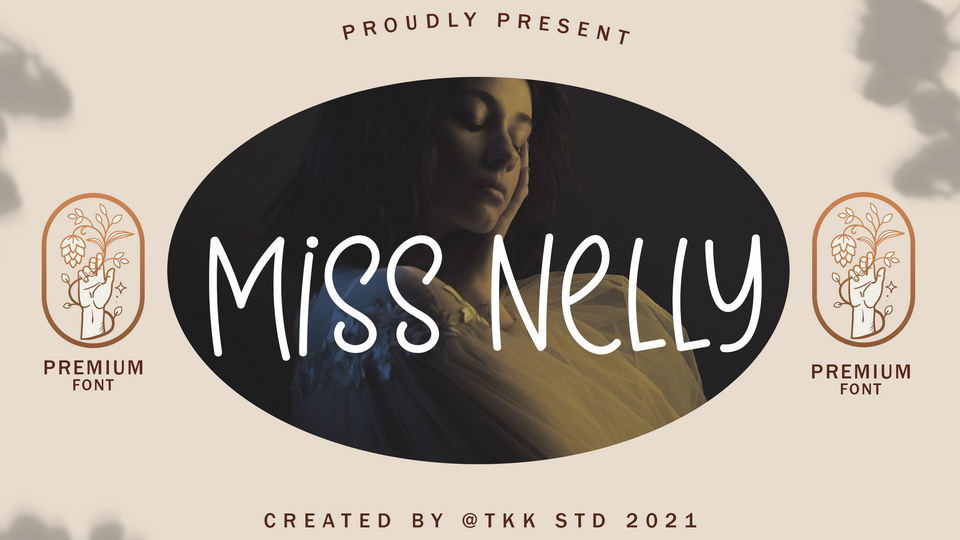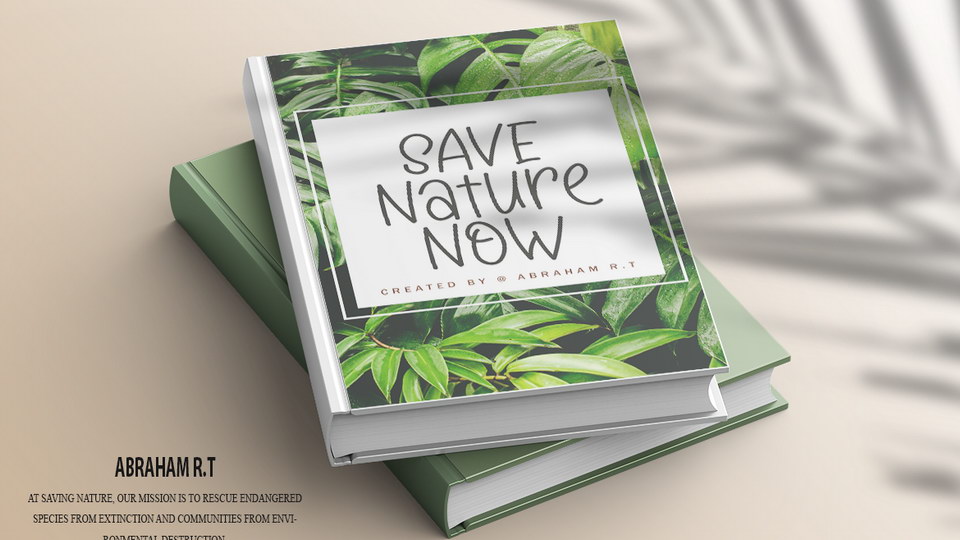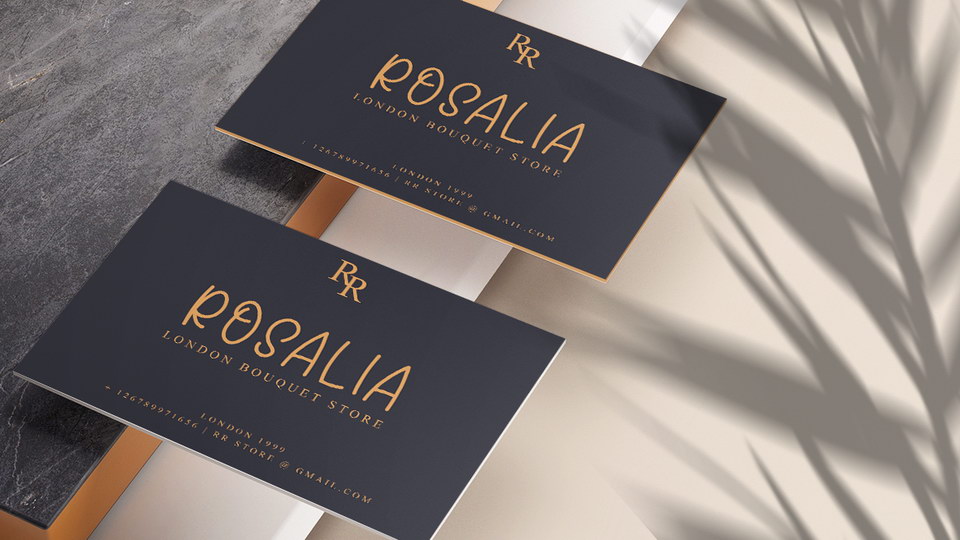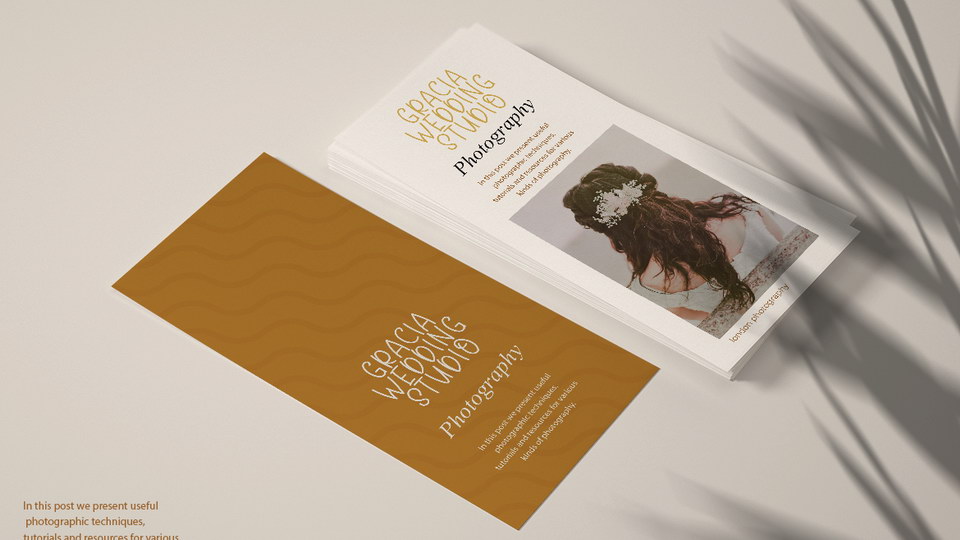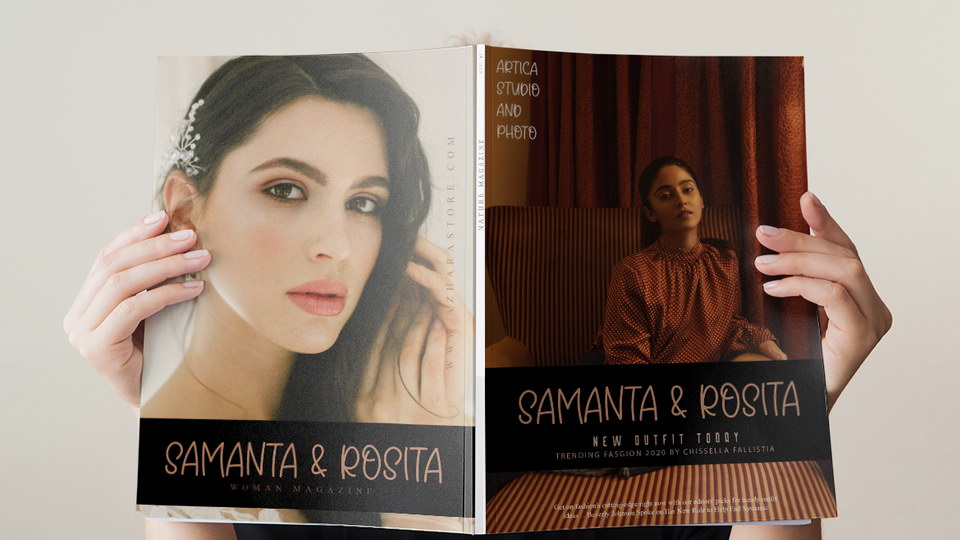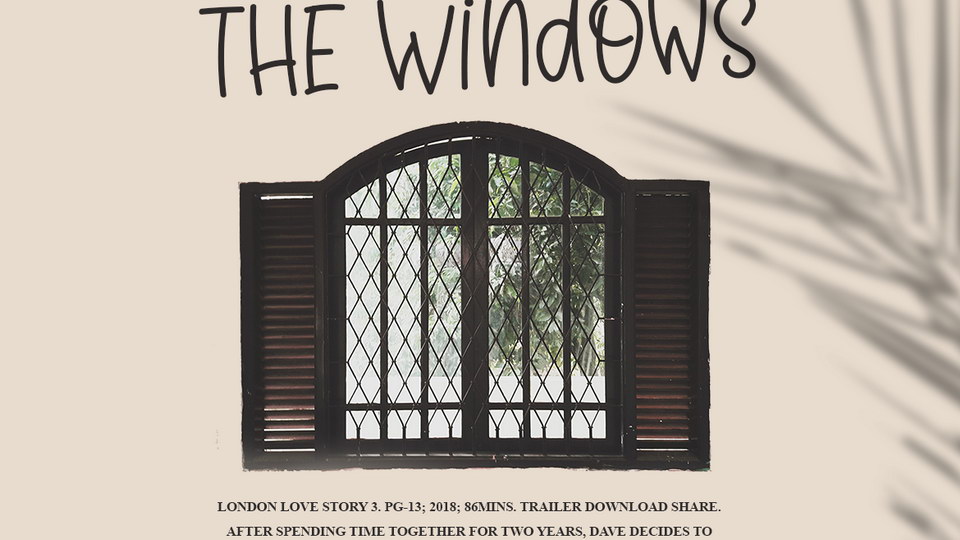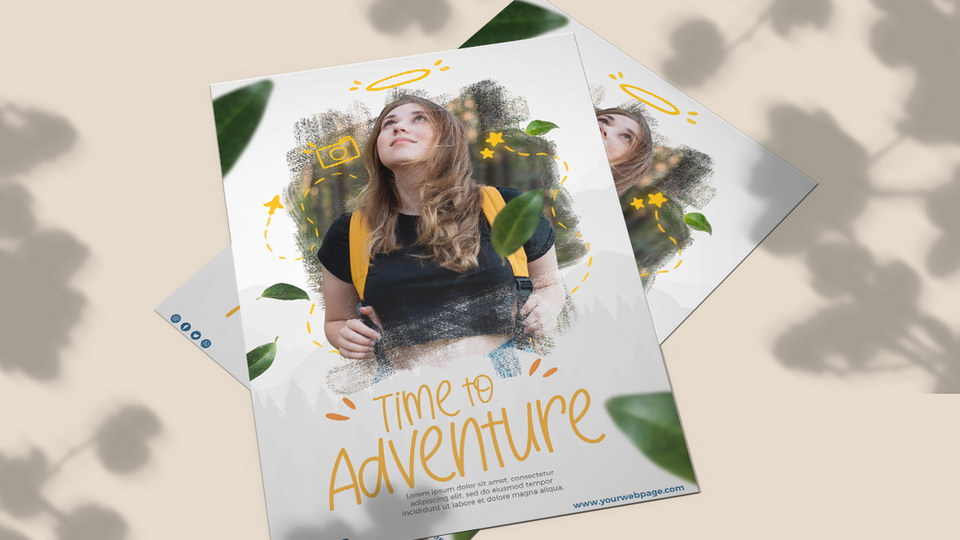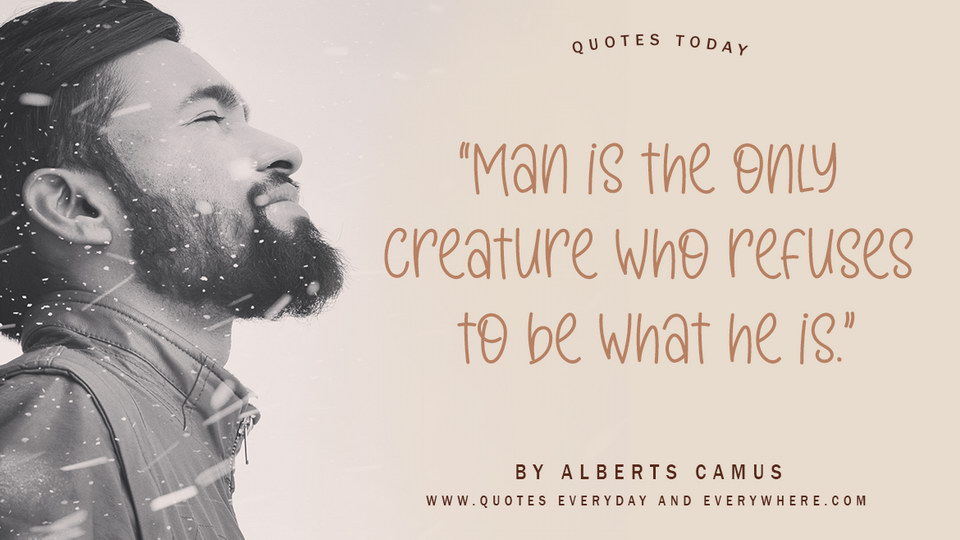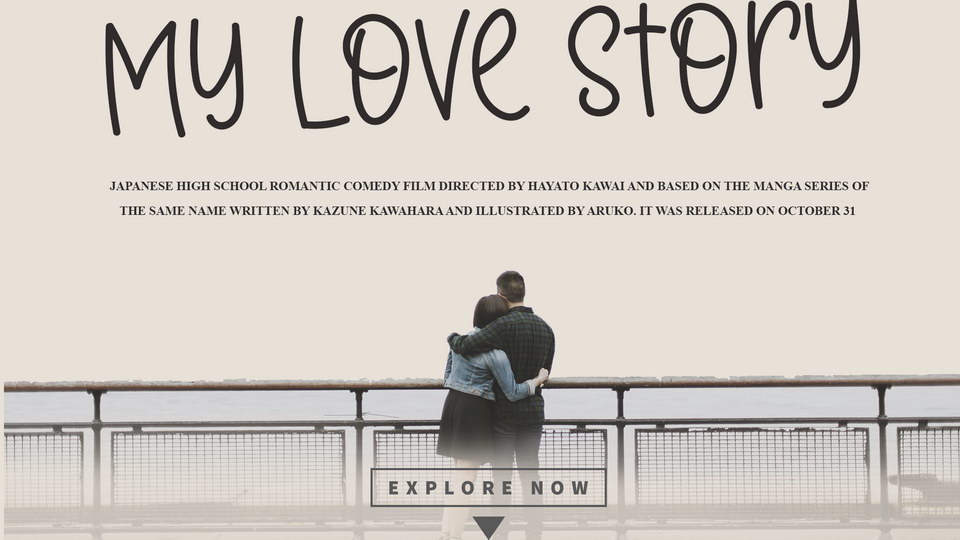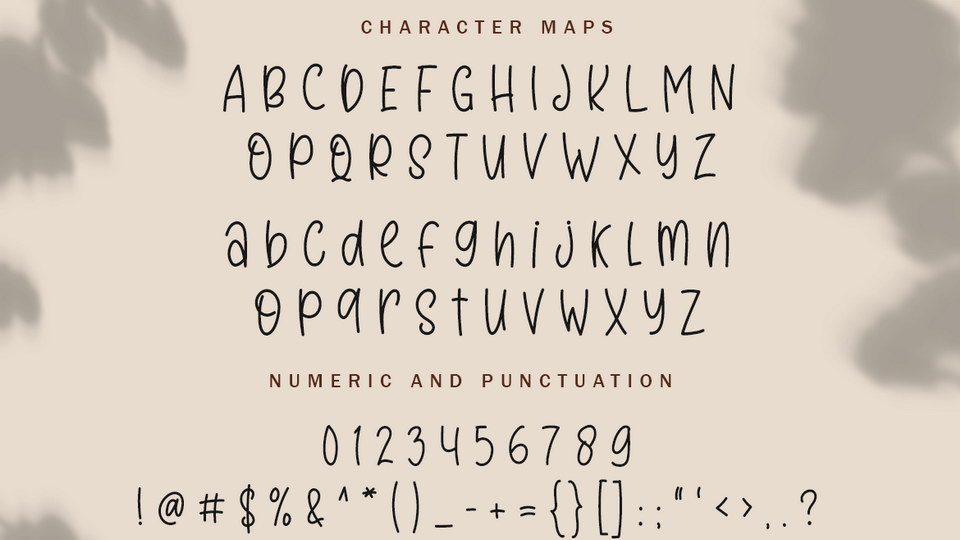
She live a simple live, but it sure does a beautiful one. Miss Nelly will emphasize the cuteness and chic girly vibe that you want to have on your design.
Suit perfectly for instagram post, instagram story, boho and scandi interior poster,home decoration, furniture catalogue, boho invitation card, wall decor, leaflet, brochure for any boho theme event, youtube channels, youtube cover, youtube thumbnail, subtitle for a bohemian theme song and so on.